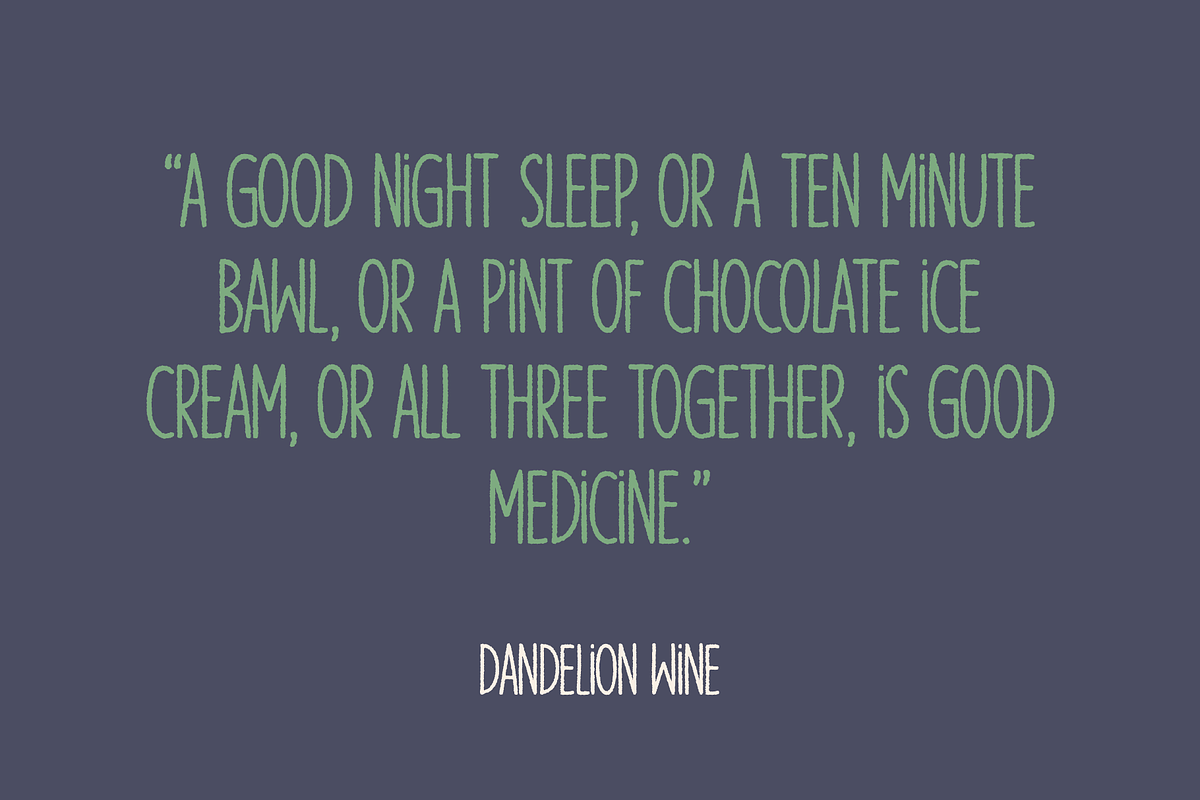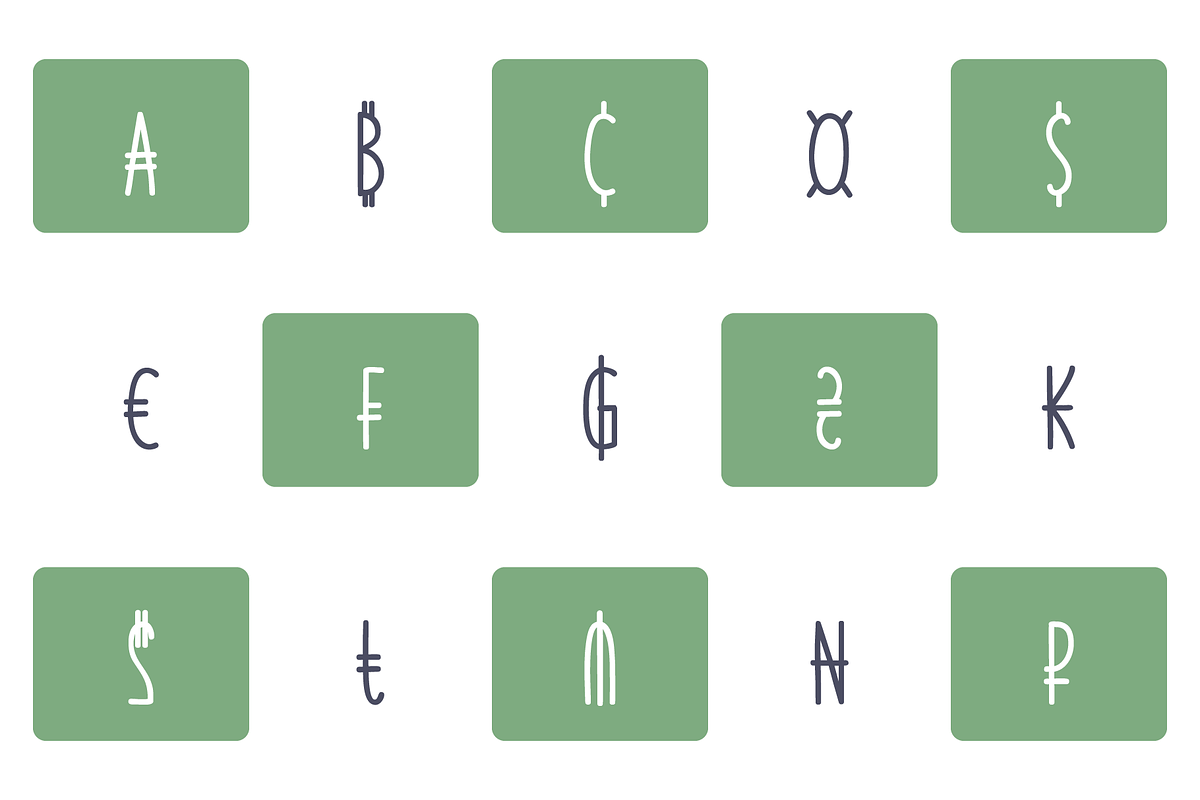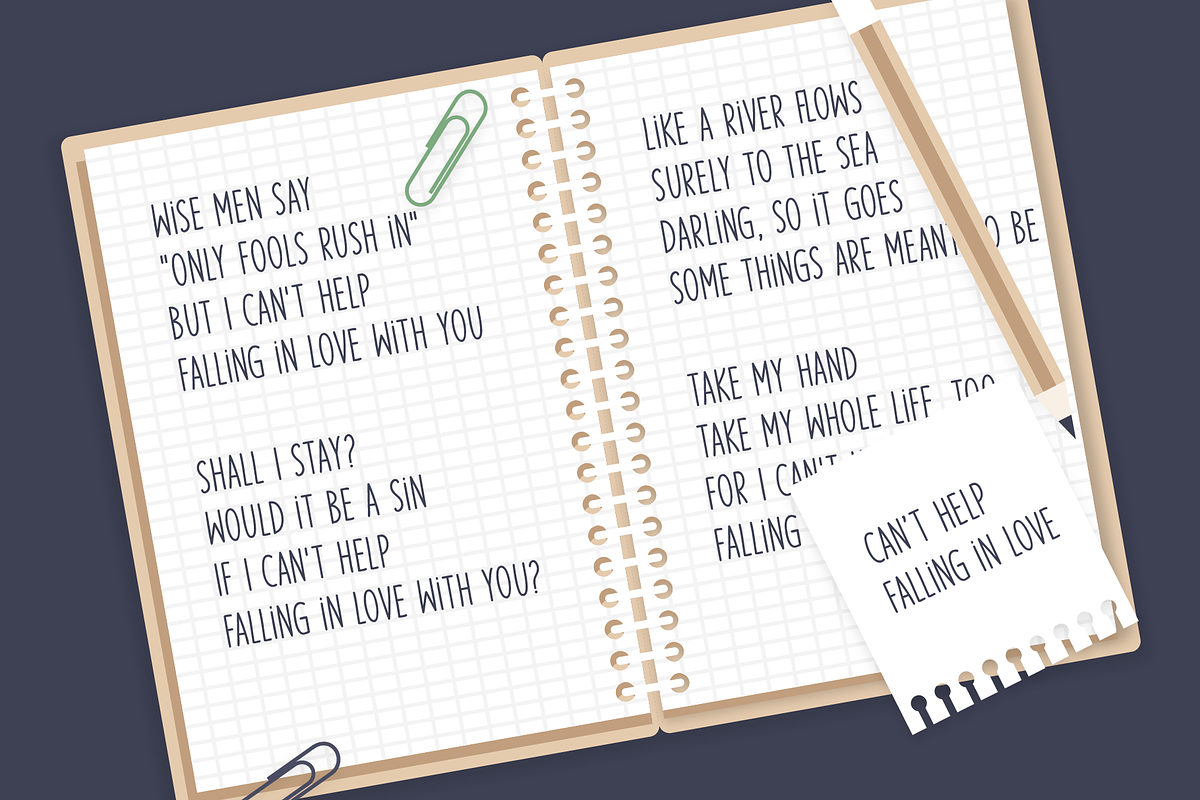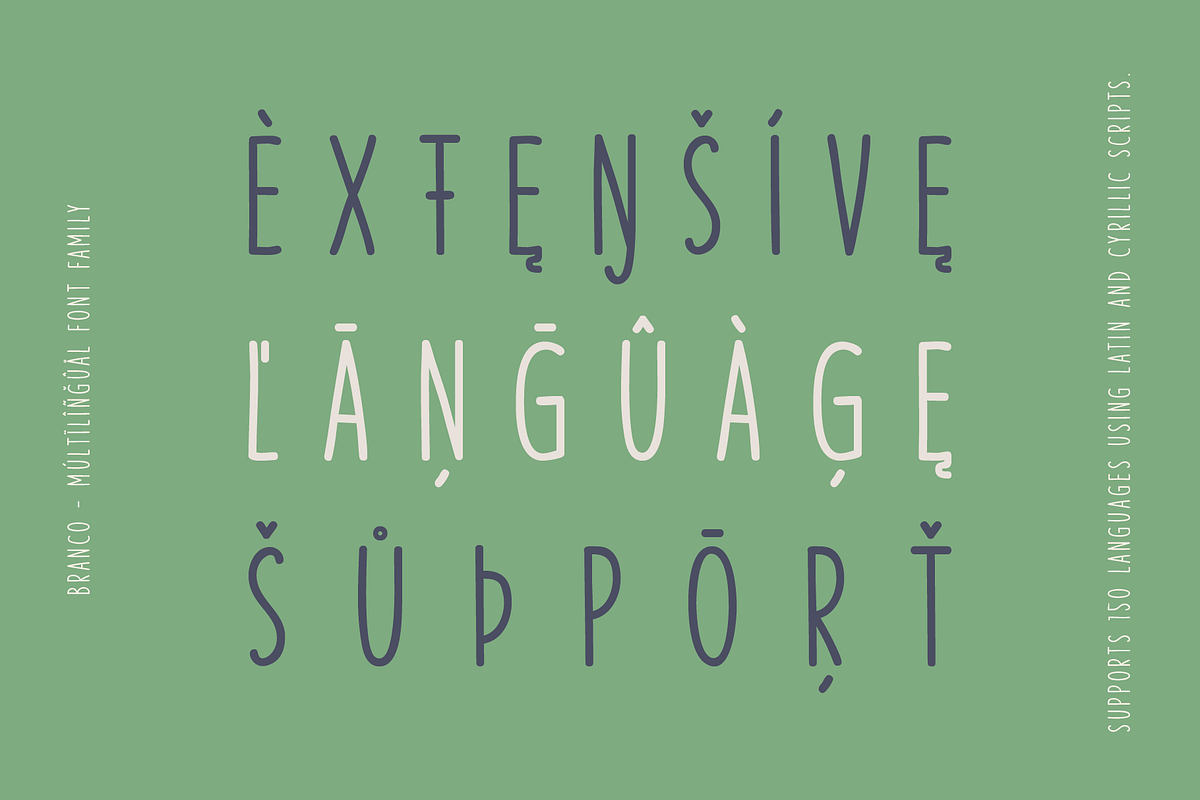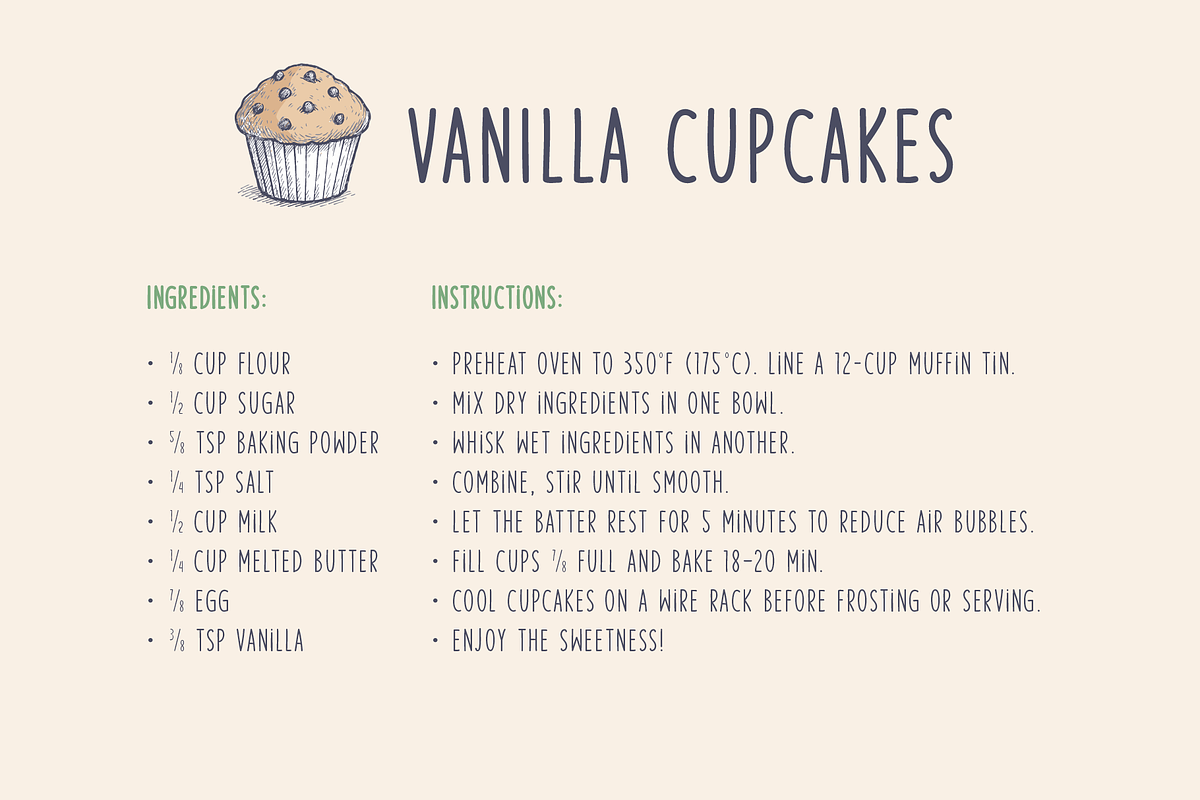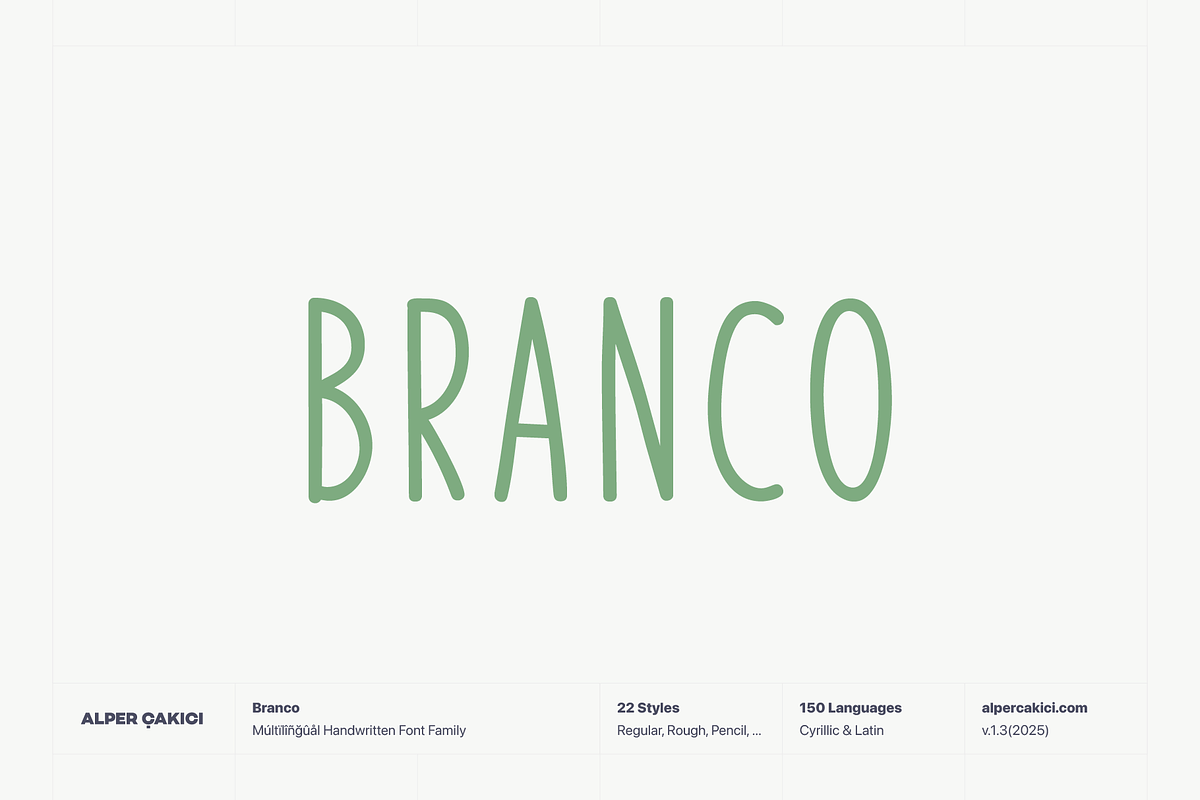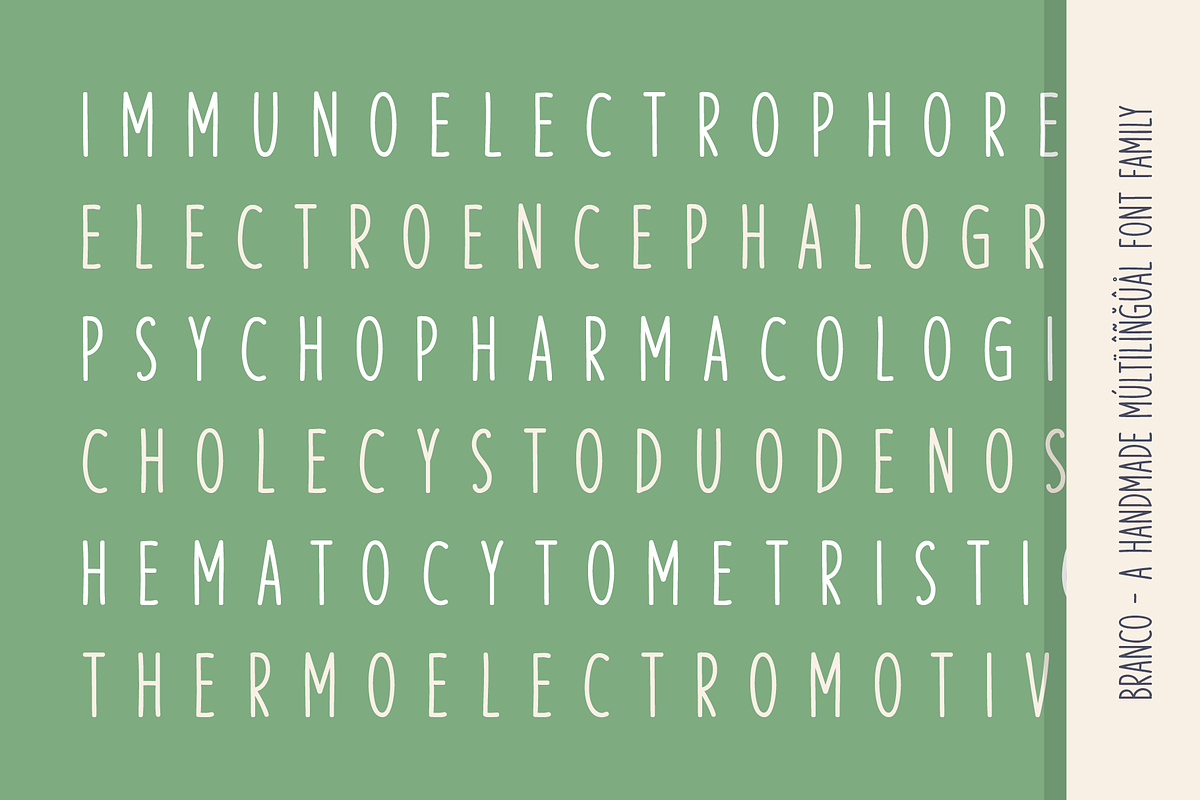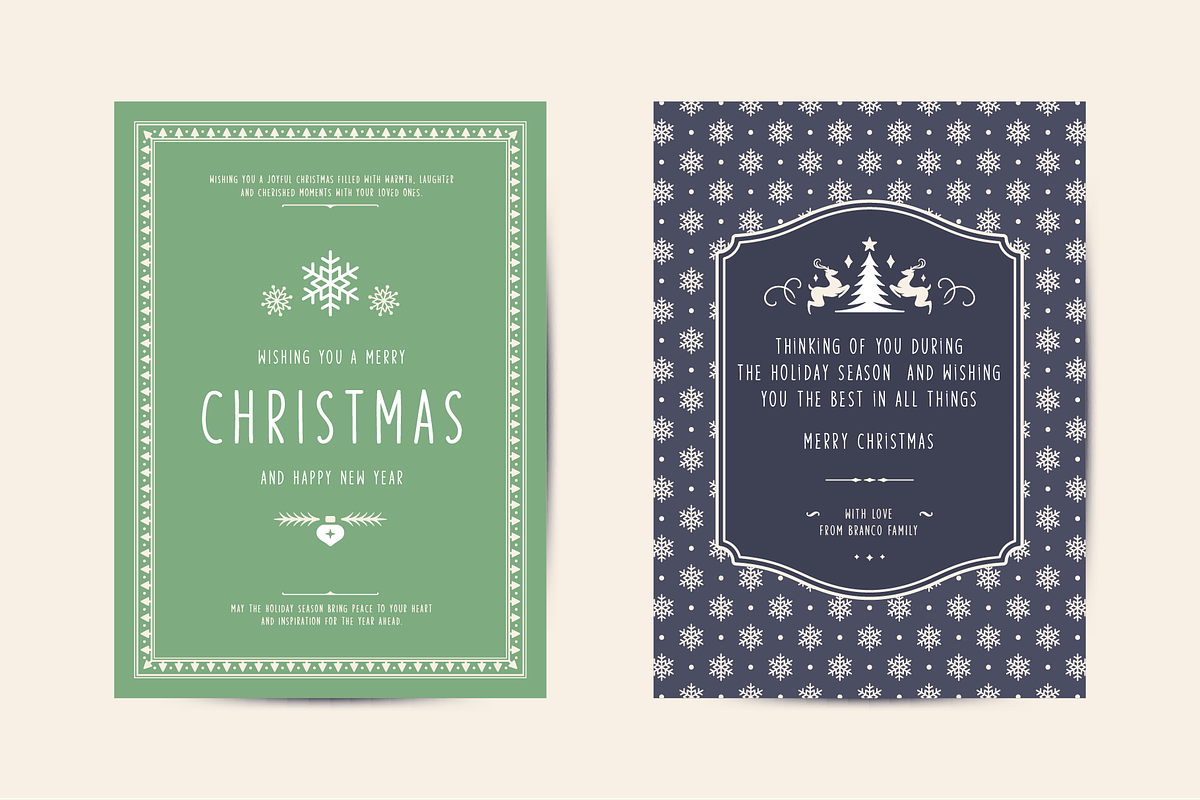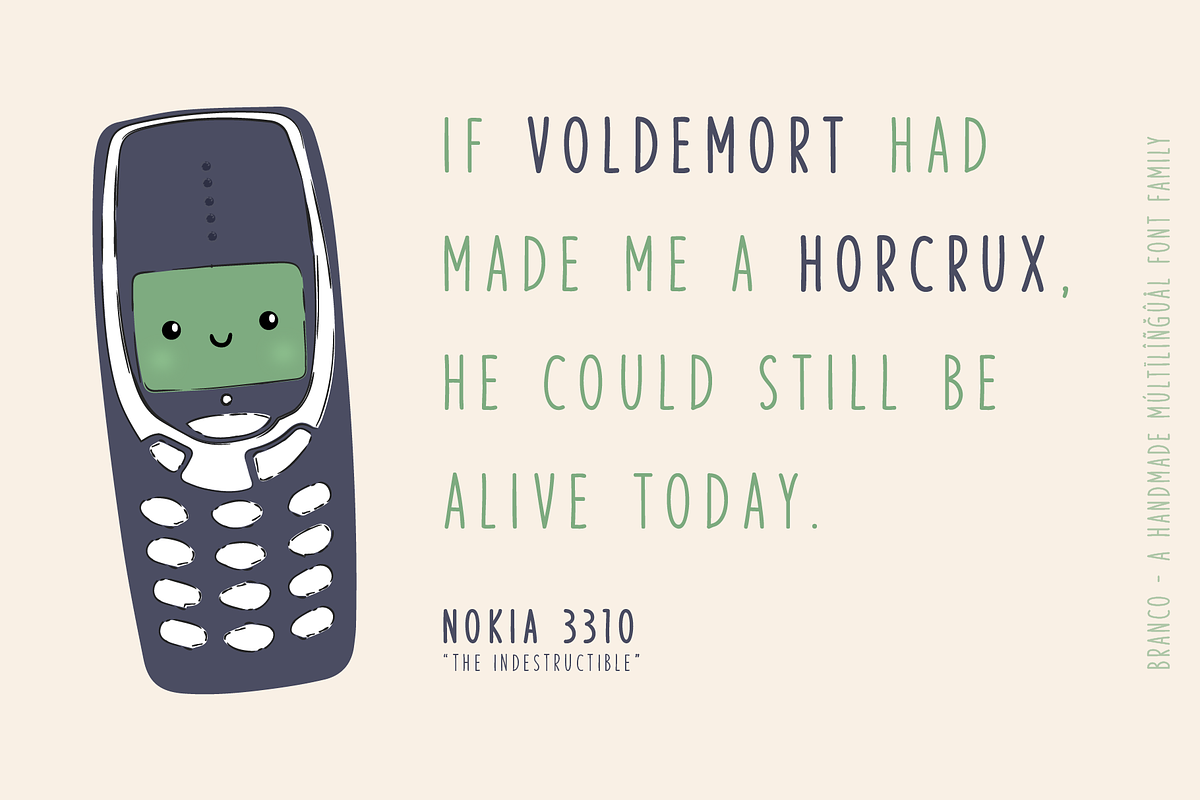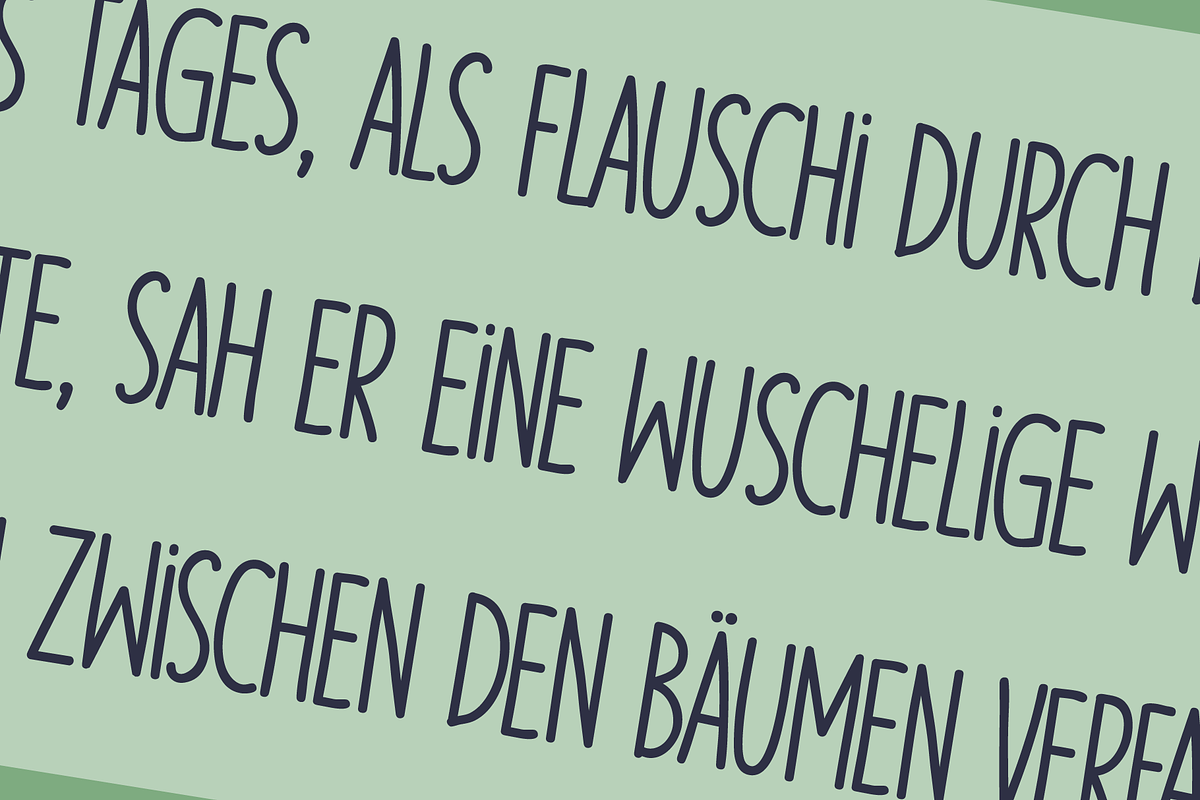
Branco Múltïlîñgûål Handmade Family
Branco is a lively handwritten font that captures the charm of natural handwriting while maintaining excellent readability and precision. Its smooth kerning and balanced letterforms make it perfect for both digital and print projects — from children’s books and packaging to casual branding and social media graphics.
Designed with care and personality, Branco brings a sense of warmth and authenticity to any design. It blends a playful, childlike spontaneity with thoughtful typographic craftsmanship, creating a handwritten look that feels genuine and versatile rather than messy.
Branco supports an impressive 150 languages, including full Cyrillic coverage, ensuring seamless multilingual communication and effortless localization for global brands.
Whether you’re crafting cheerful invitations, fun product labels, or expressive posters, Branco adds a touch of human charm that connects with audiences across cultures. ✨ Perfect for: kids’ products, stationery, posters, branding, quotes, packaging, invitations, and digital designs.